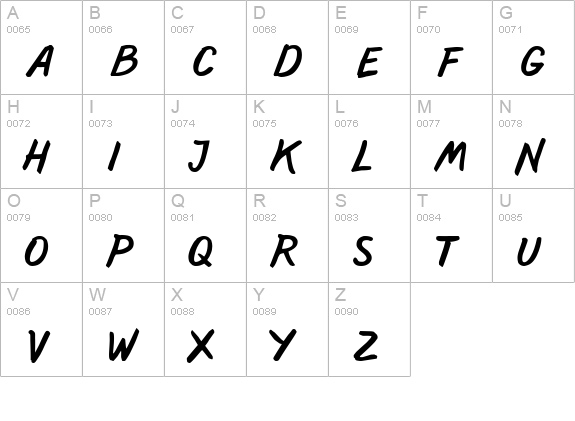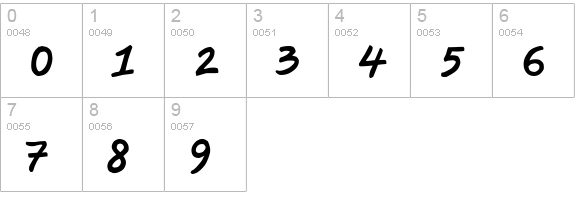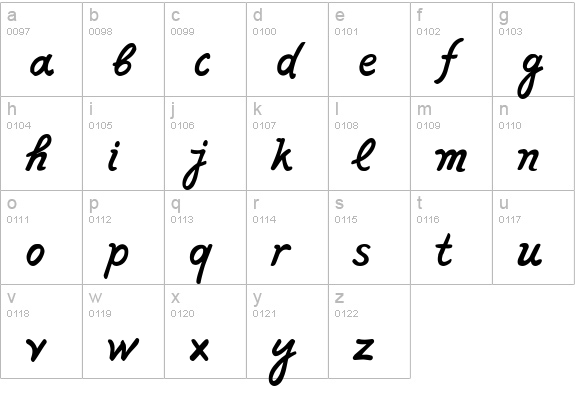
PFFreeScript Normal is the standard, neutral variant in the PFFreeScript typeface family \xE2\x80\x94 well suited to general body text, paragraphs, and standard typographic work.
PFFreeScript Normal font is a charming and elegant typeface that exudes a sense of sophistication and grace. Its flowing script style gives a graceful touch to any design project, making it perfect for invitations, branding, and other creative endeavors. The fluid strokes and delicate curves of this font add a touch of elegance and class to any text. What makes PFFreeScript Normal font even more appealing is that it is available for free download at FontsMarket.com. This means that you can easily access this beautiful font without any cost, making it a fantastic choice for both personal and commercial use. Don't miss out on the opportunity to enhance your projects with the beauty of PFFreeScript Normal font – download it today and add a touch of sophistication to your designs!